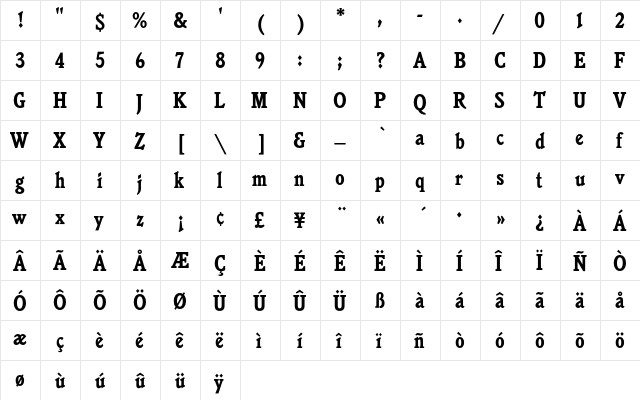
JensonOldStyleEF BoldCond
Design Context for JensonOldStyleEF Typeface
JensonOldStyleEF brings classic typographic sensibility to the table — its serifs and measured letterforms reflect centuries of print heritage. The heavy weight commands attention and anchors typographic hierarchies. The condensed width makes it efficient for tight spaces without sacrificing legibility.
Pro Tip: Set JensonOldStyleEF with slightly loose tracking in headlines to let each letterform's detail read clearly at display sizes.